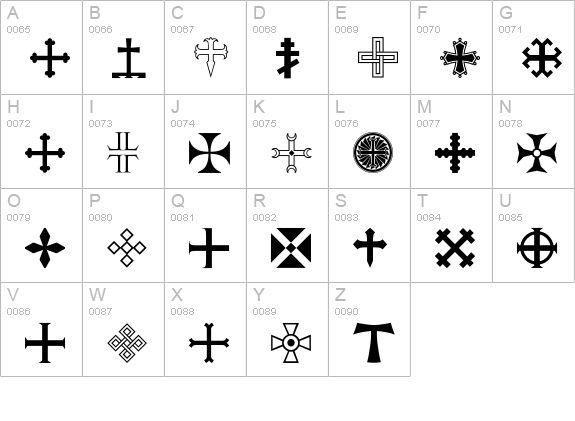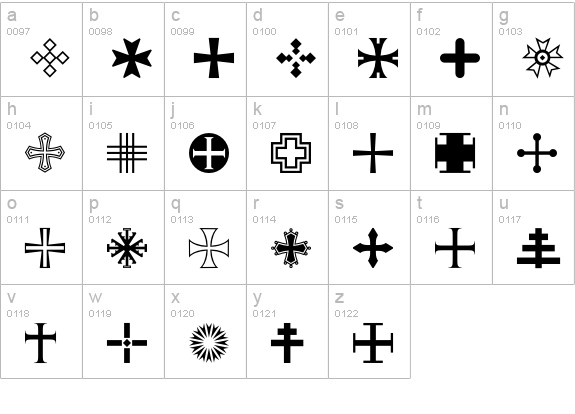
Apocalypso-Crosses Font Details
Apocalypso-Crosses font is a captivating display typeface that combines elements of apocalyptic aesthetics with the intricate beauty of cross patterns. This unique font is perfect for projects that require a bold and edgy look, making it ideal for titles, posters, and branding materials. The intricate cross motifs add a mystical and mysterious touch to any design, making Apocalypso-Crosses font a standout choice for those seeking a distinctive and impactful visual style. Best of all, Apocalypso-Crosses font is available for free download at FontsMarket.com. This means you can easily access this eye-catching font to enhance your creative projects without any cost. Don't miss out on the opportunity to add a touch of apocalyptic flair to your designs with the striking Apocalypso-Crosses font, now just a download away.